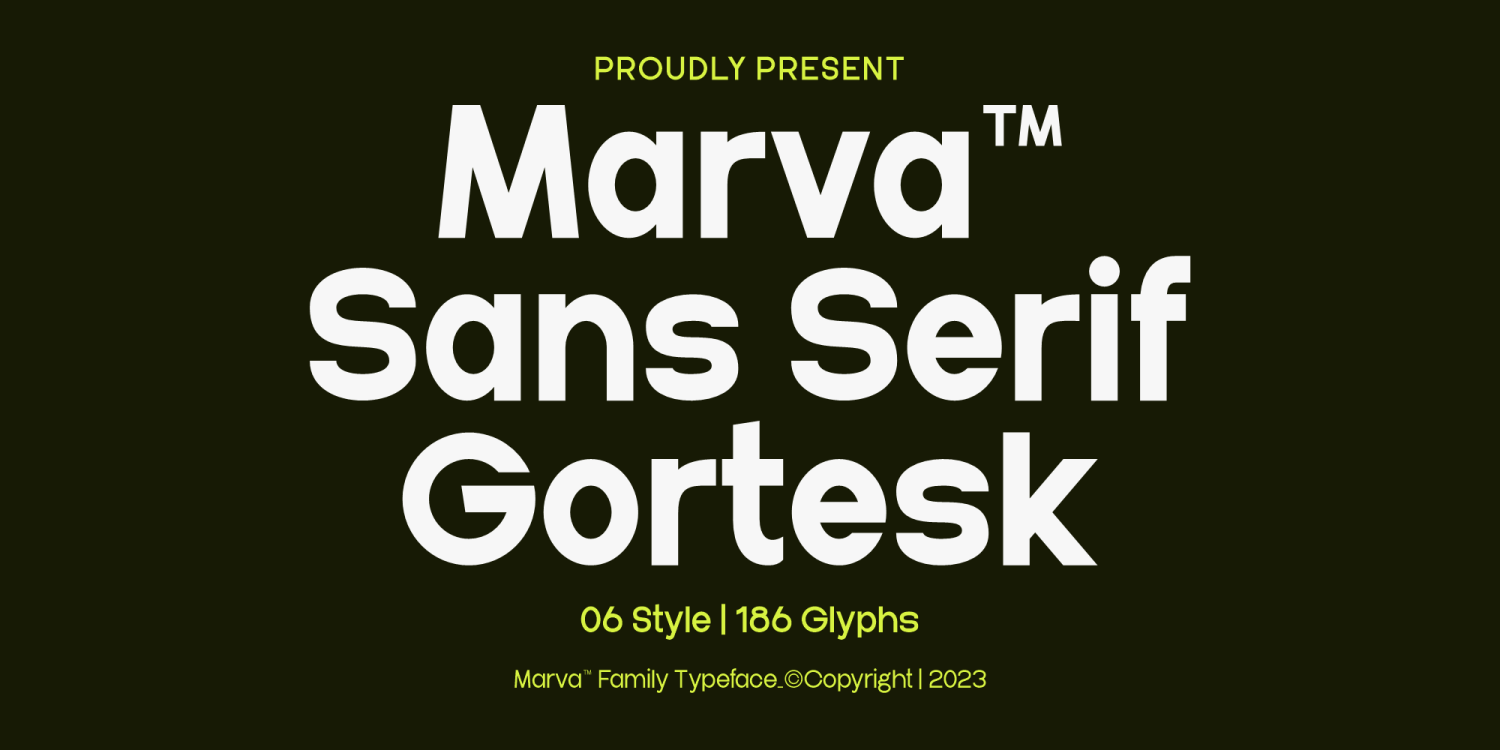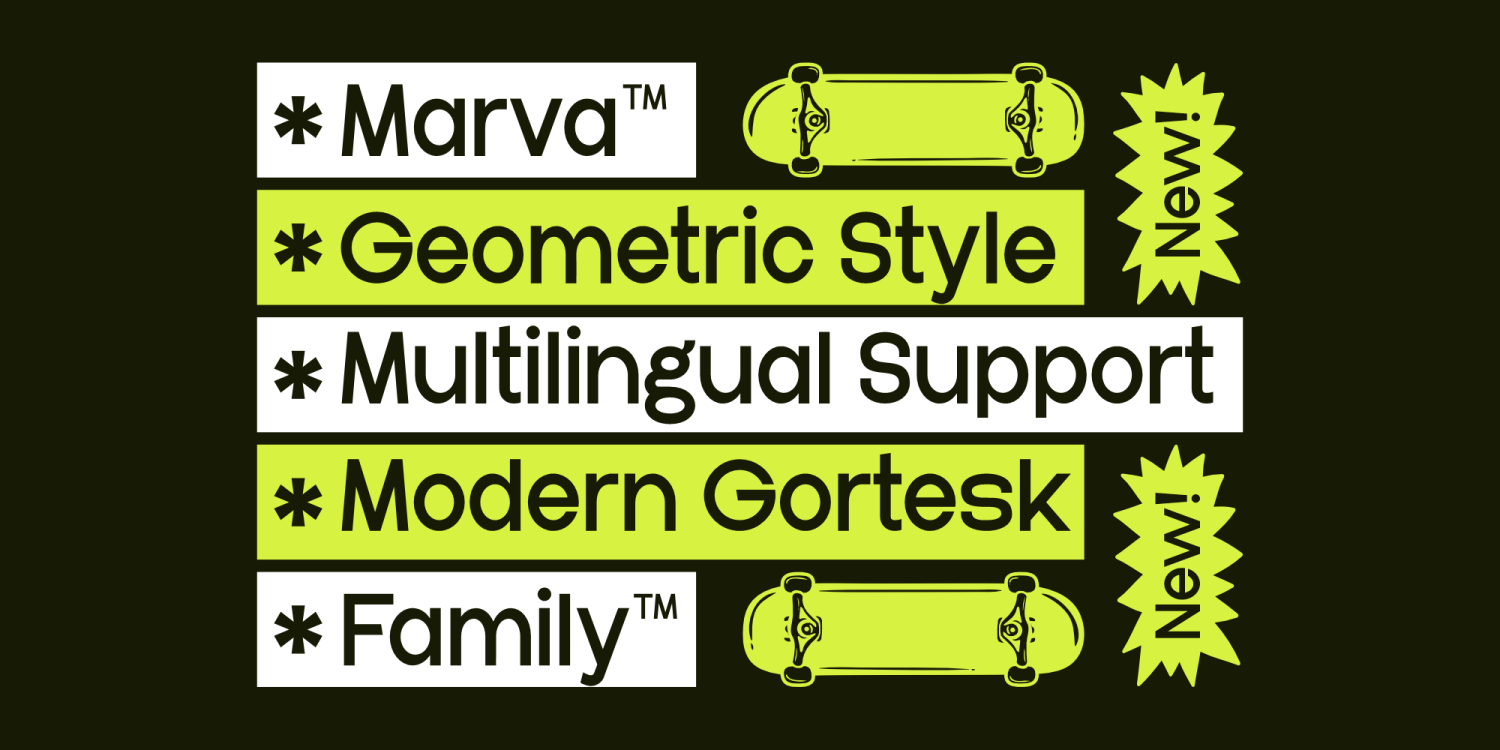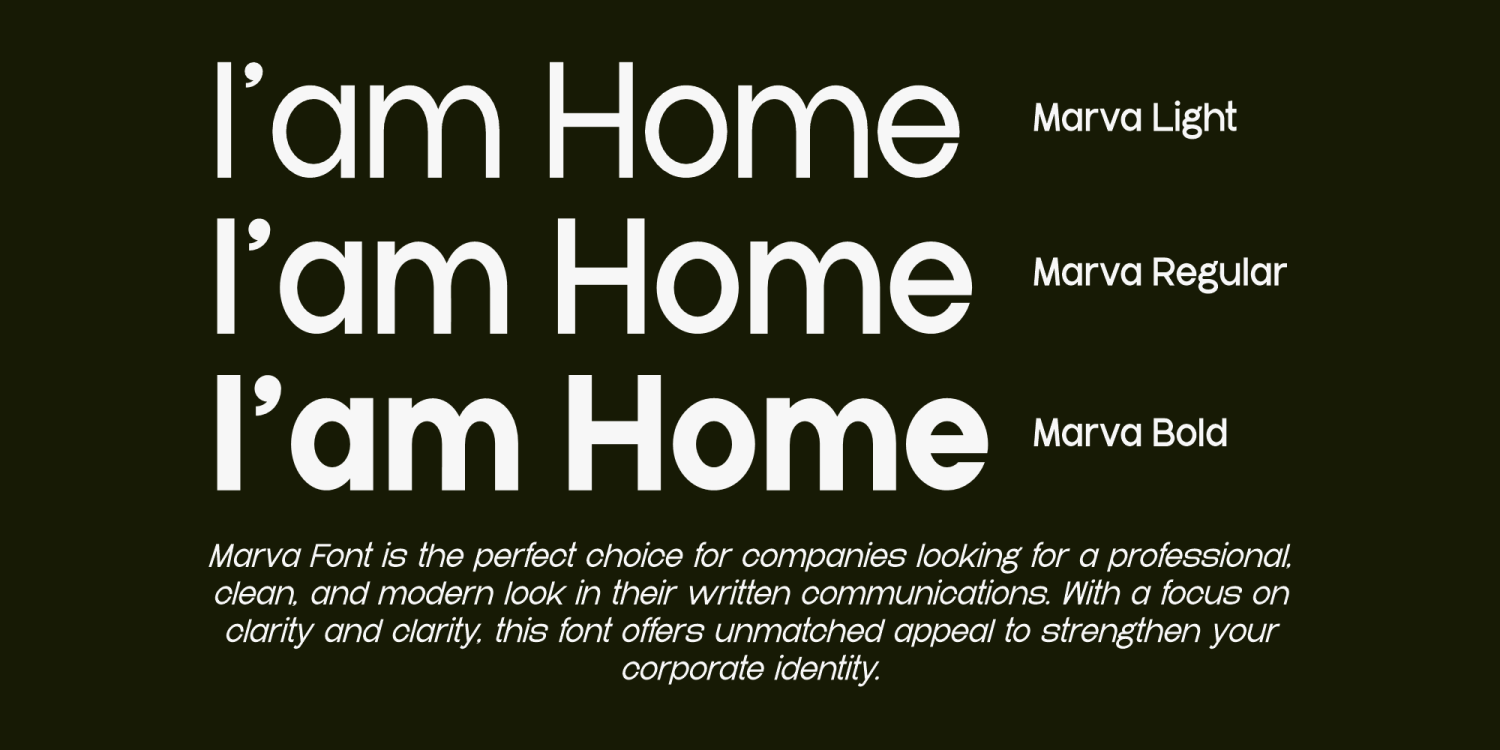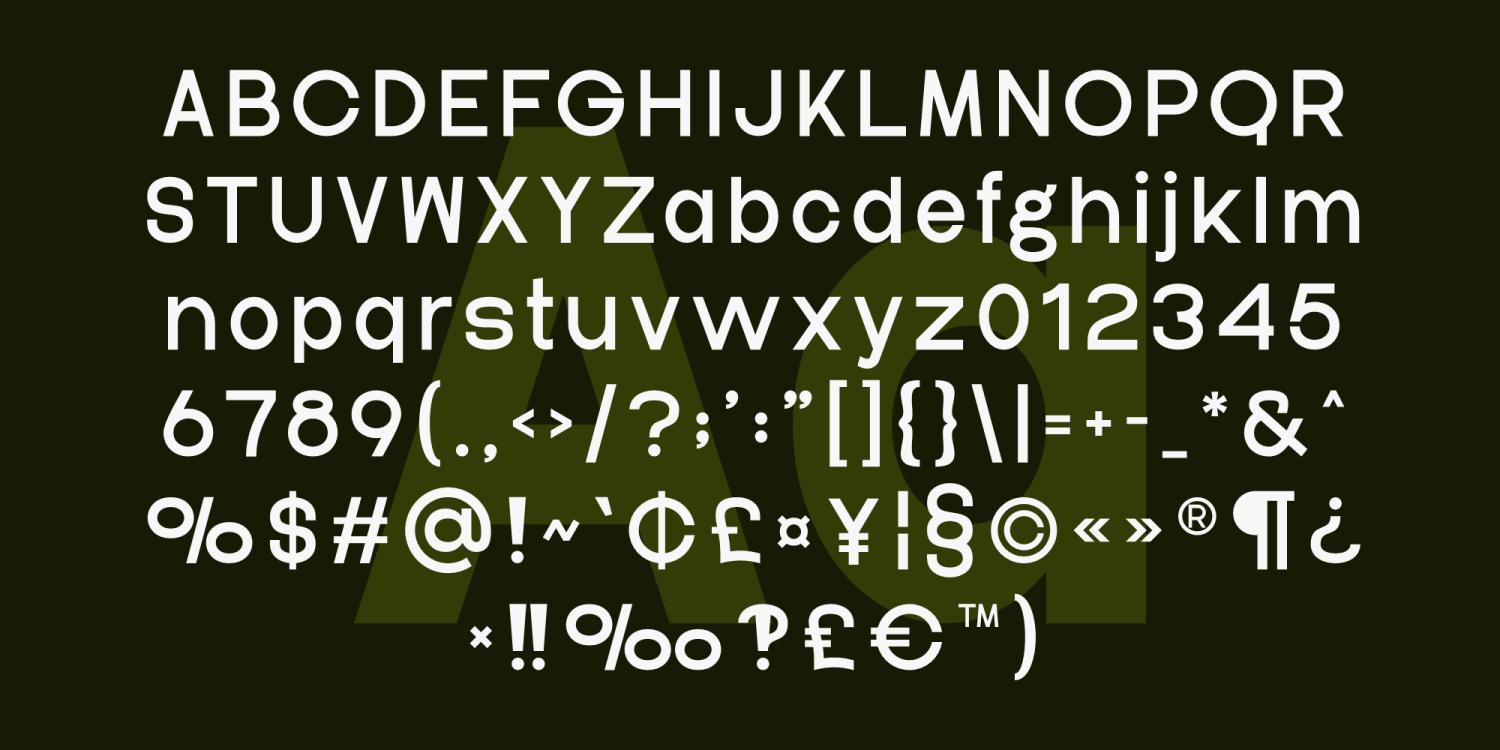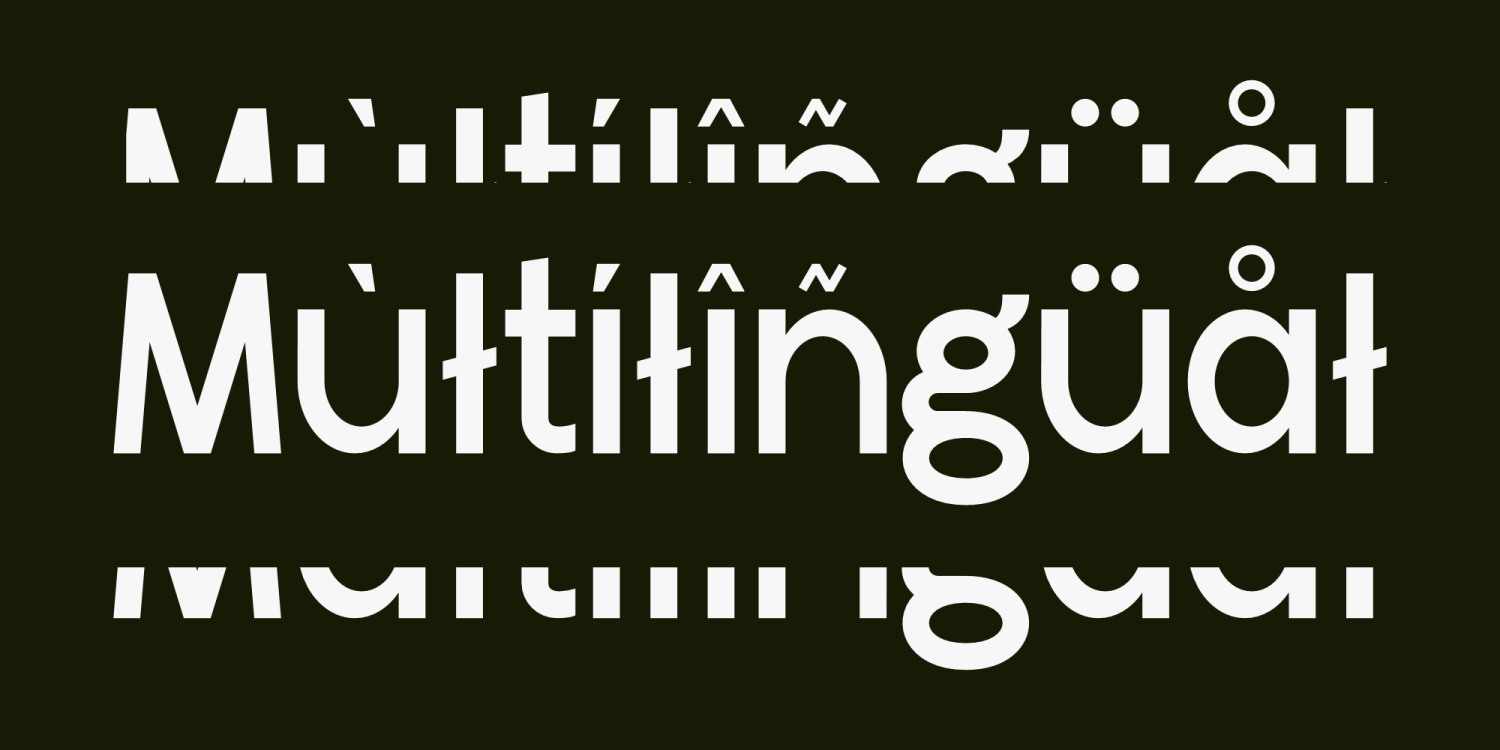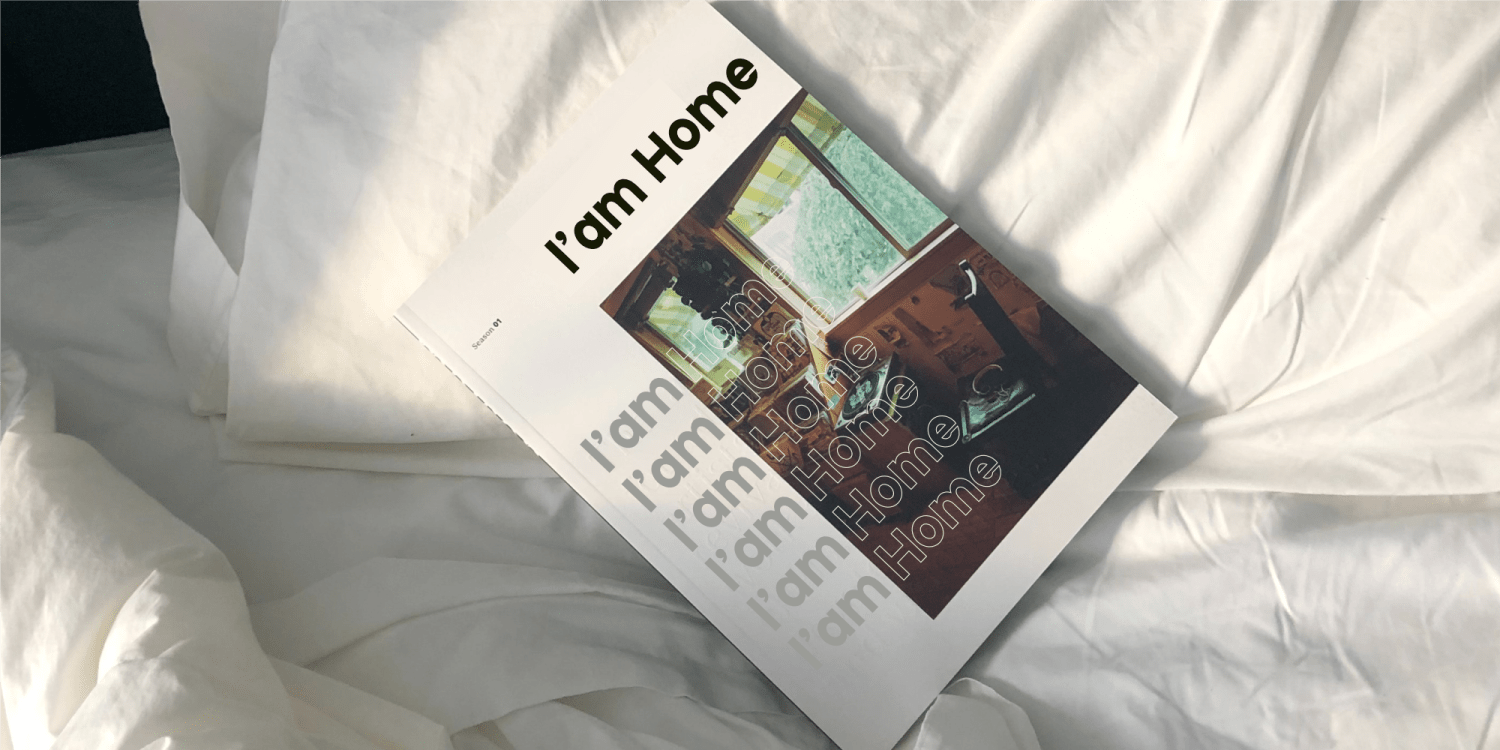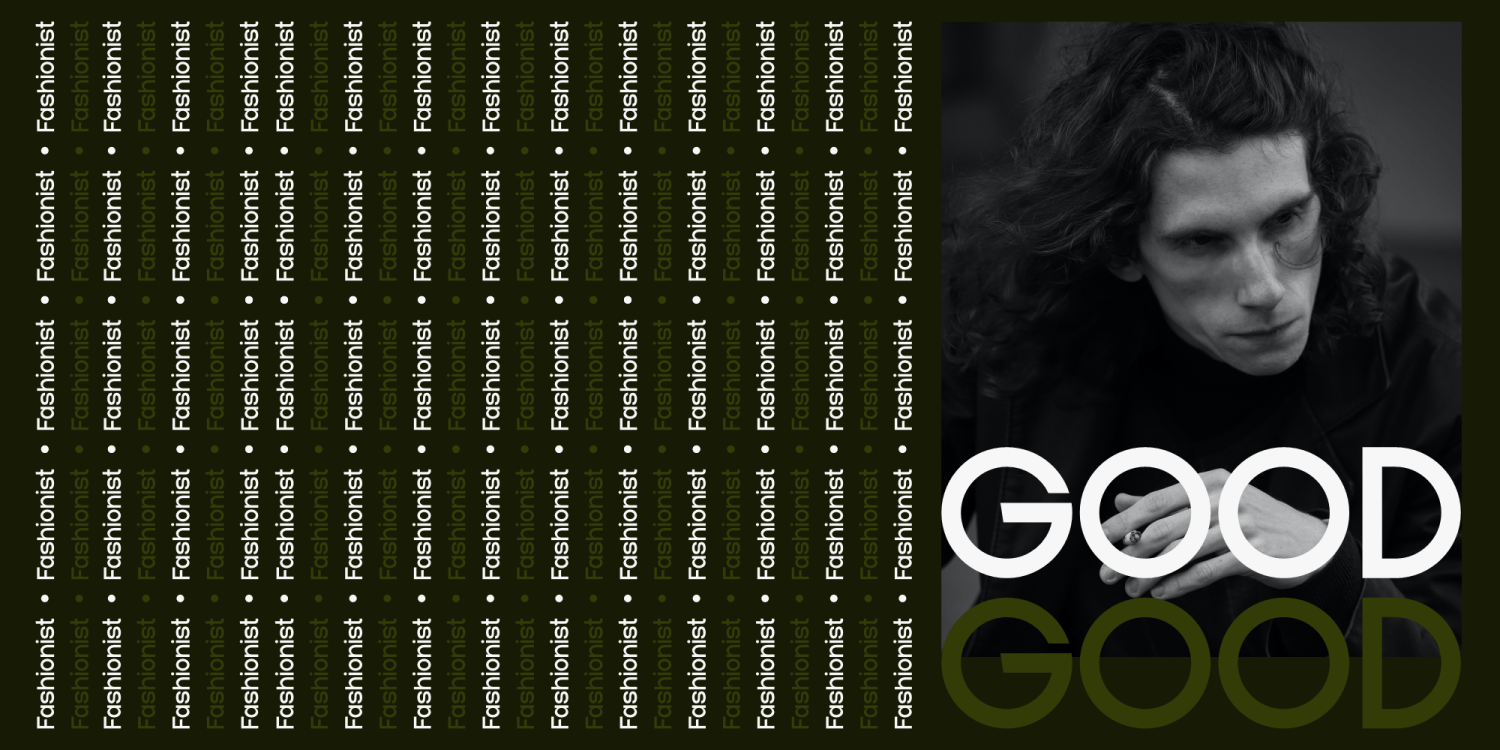
Marva
Font Family by Marvadesign
Introducing Marva is a modern sans-serif typeface with a strong geometric structure, designed to offer a sleek, professional, and contemporary aesthetic. Its grotesque style combines boldness with clarity, making it an excellent choice for various design applications, from branding to editorial content. With six distinct styles and a total of 186 glyphs, Marva provides versatility for designers who require flexibility in typography. It supports multilingual characters, ensuring global usability while maintaining a refined, balanced appearance across different languages. The font family includes various weights, such as Light, Regular, and Bold, allowing for dynamic typographic hierarchy and contrast.
One of Marva's defining characteristics is its sharp yet approachable letterforms, which exude modernity while retaining excellent readability. The geometric inspiration behind its design gives it a structured, contemporary look, making it suitable for corporate identity, digital interfaces, advertising, and editorial projects.
Designed with attention to detail, Marva strikes a balance between minimalism and impact. Its smooth curves and well-proportioned letters contribute to a seamless reading experience, while its bold weights deliver strong visual presence when needed. Whether used for headlines, logos, or body text, Marva ensures a clean and professional typographic experience.